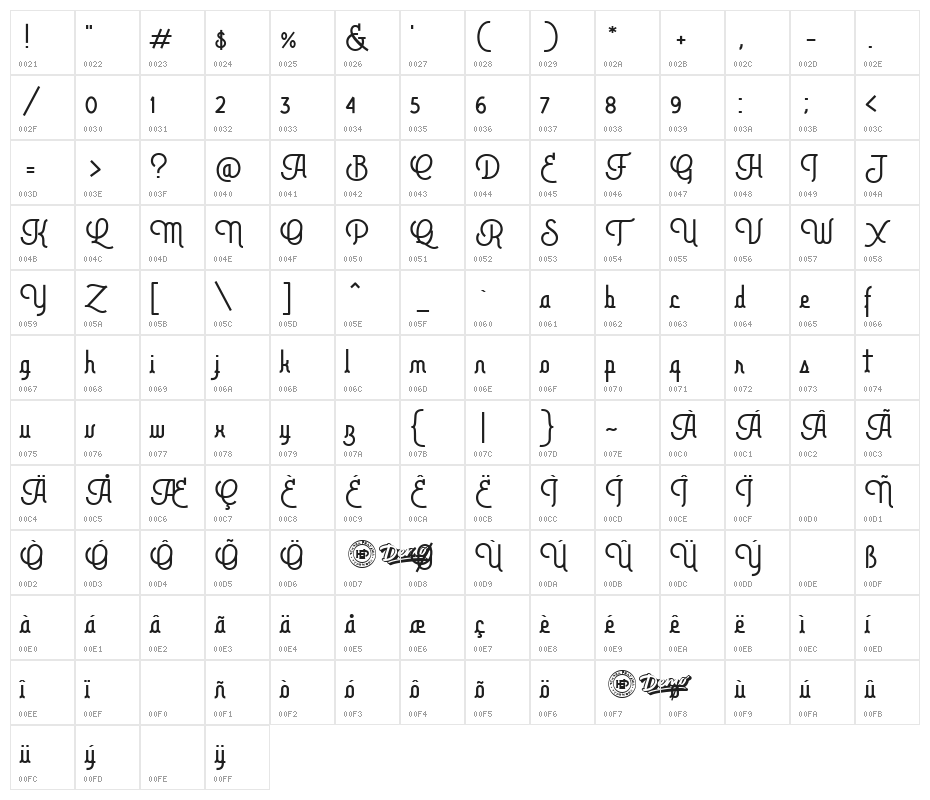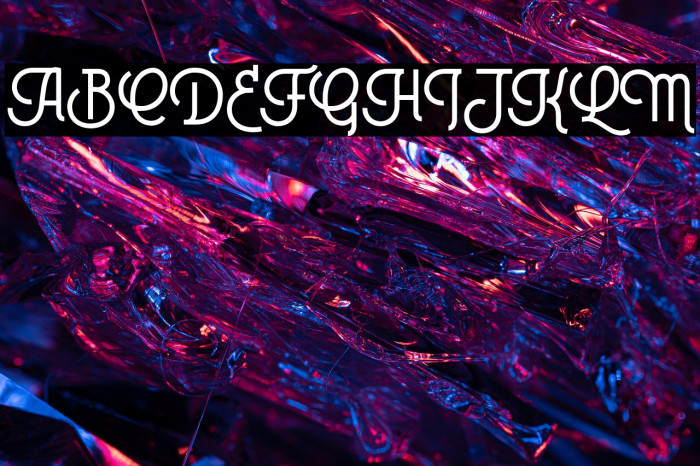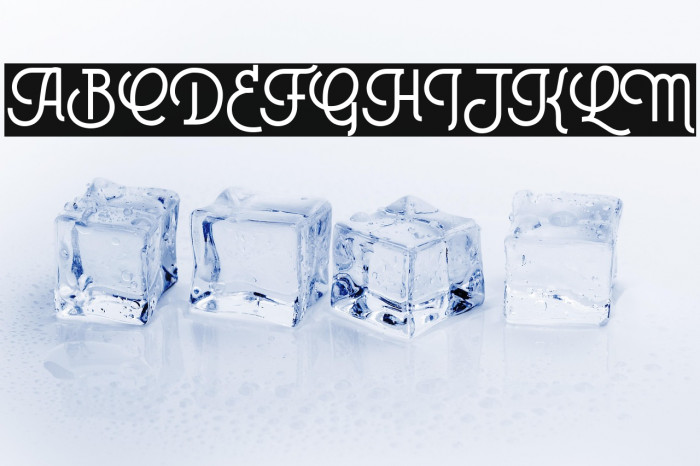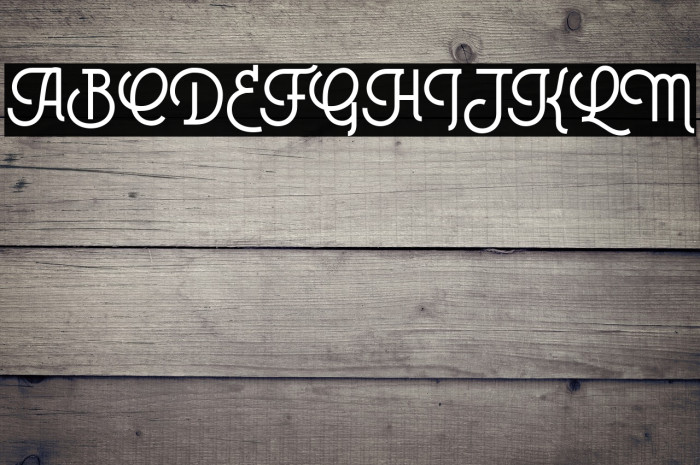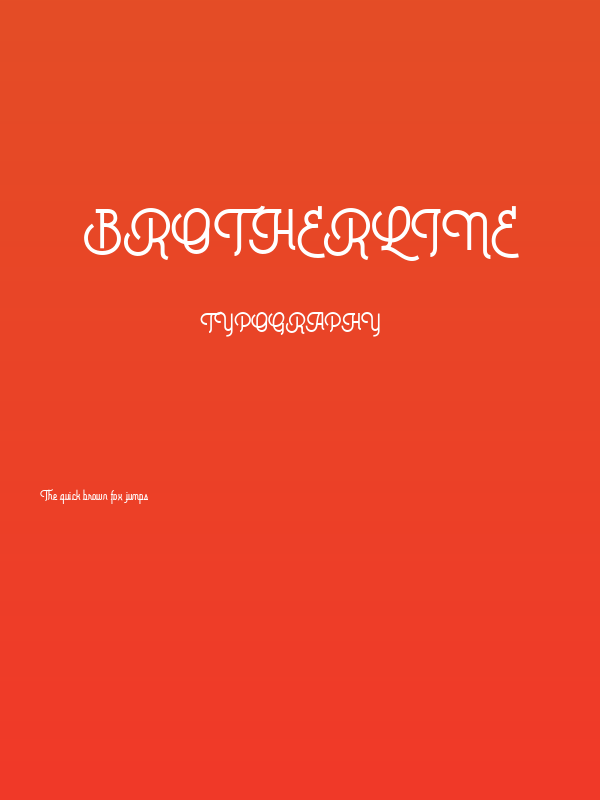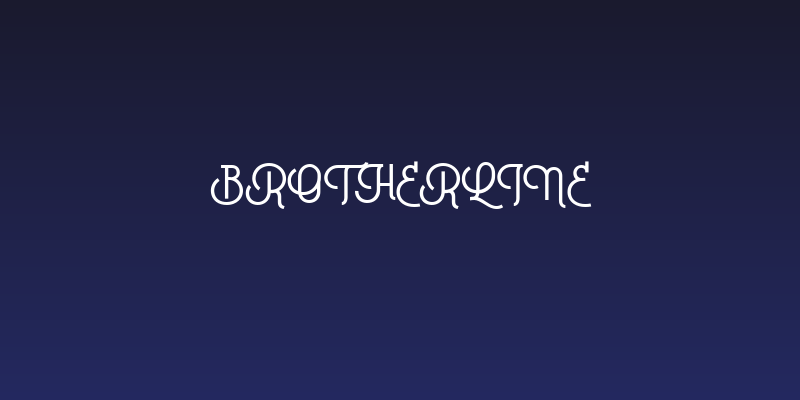
Brotherline Font
Brotherline Description
This font features a unique blend of modern and vintage styles, characterized by its decorative and flowing letterforms. The uppercase letters have a distinct, ornamental flair with curved strokes that give them a sophisticated and artistic appearance. The lowercase letters maintain a more structured and uniform look, providing a nice contrast to the ornate uppercase. The numerals are clean and straightforward, ensuring readability. Special characters are designed with a similar decorative touch, making them suitable for creative projects. Overall, this font exudes elegance and creativity, making it ideal for artistic and expressive designs.
| Proposed Projects | Ideal for branding, invitations, posters, and any project that requires a touch of elegance and creativity. |